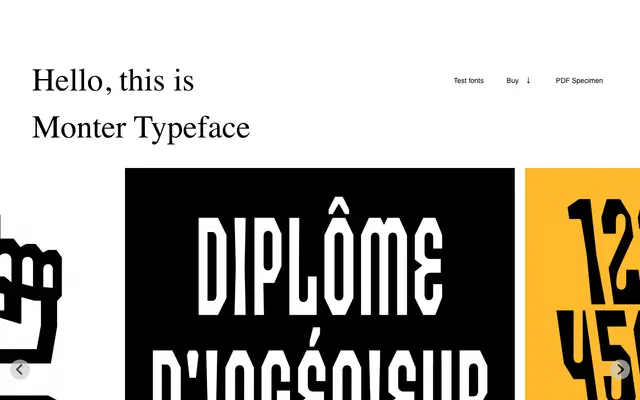
Monter
Laïc · Maciej Połczyński · 2020
A three-style headline typeface by Maciej Połczyński, drawn in tribute to construction workers and shaped by the geometry of a metal bolt.
Designed by Maciej Połczyński and released in 2020, Monter takes its formal cues from the silhouette of a metal bolt, giving it a distinctly industrial edge suited to headline and display contexts. The name references the Polish word for assembler or construction worker, framing the typeface as an explicit tribute to manual labour. Three styles are available, with full Polish diacritic support and a pair of stylistic alternates for M and W via ss01.
A headline typeface with geometric construction inspired by metal bolt shapes, giving it a distinctive industrial character suited to display use only.